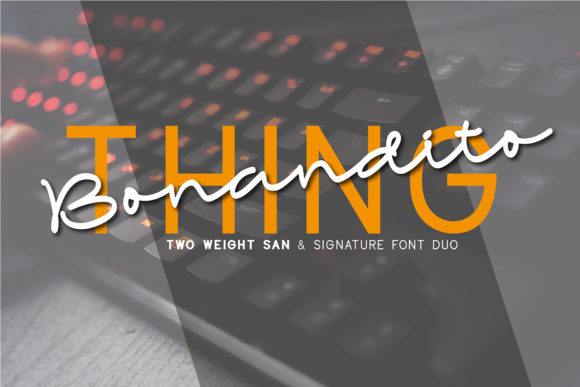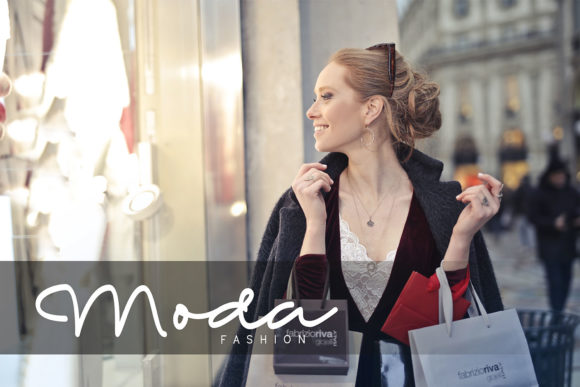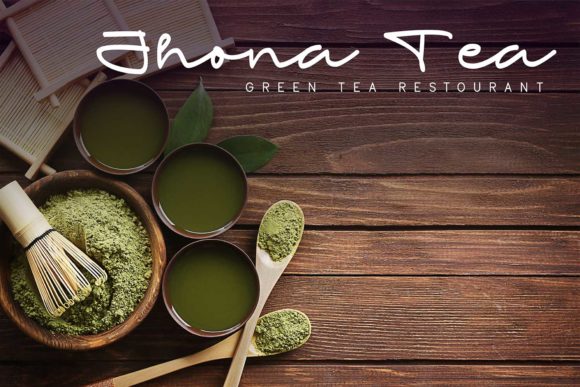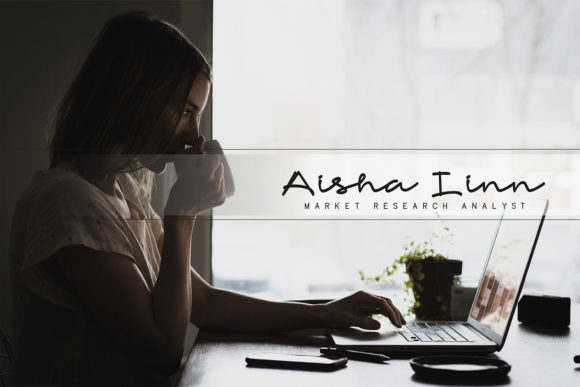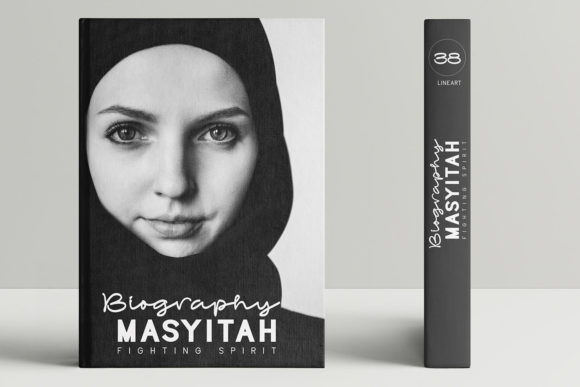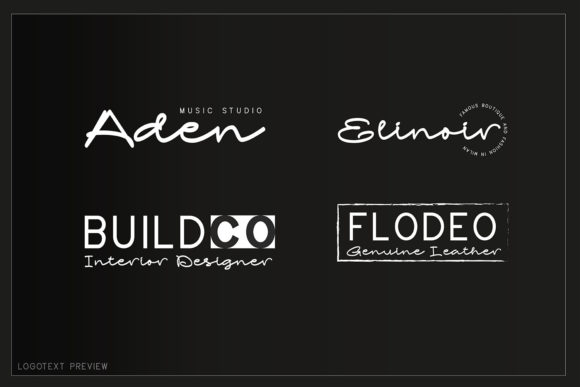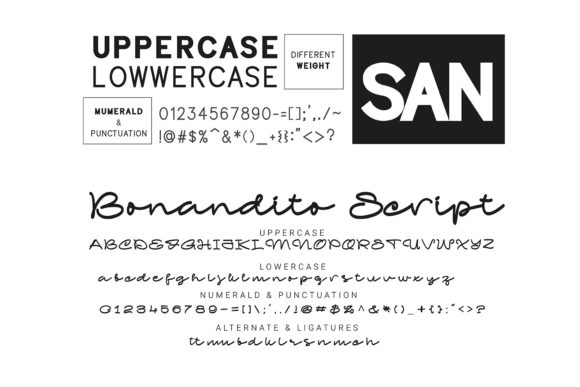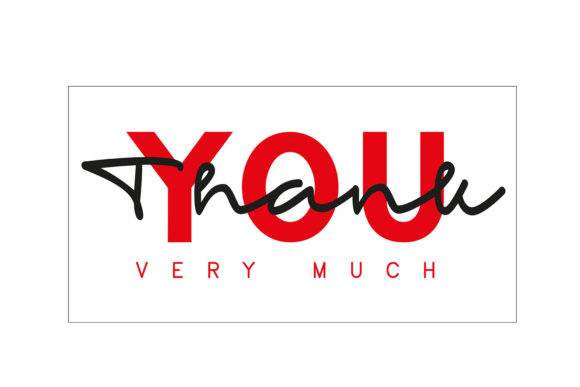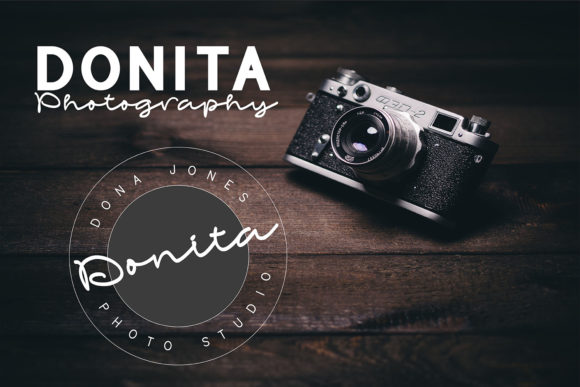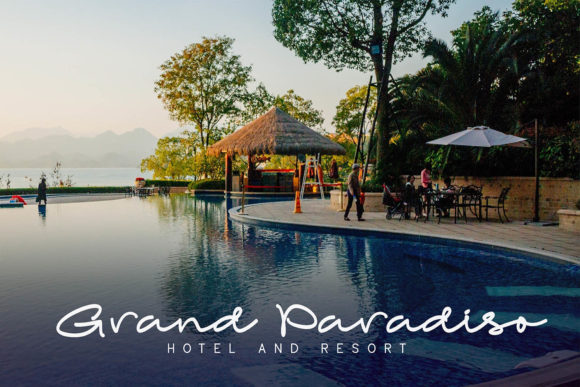
Bonandito Thing Duo Font
About Bonandito Thing Duo Font
The Bonandito Thing is a fashionable font duo. it comes in a sans and a script version which gives you the opportunity to create unique designs, every time you use it.
The Bonandito Script is a classy fast flowing signature font, and the Bonandito Sans has a stylish, modern feel.